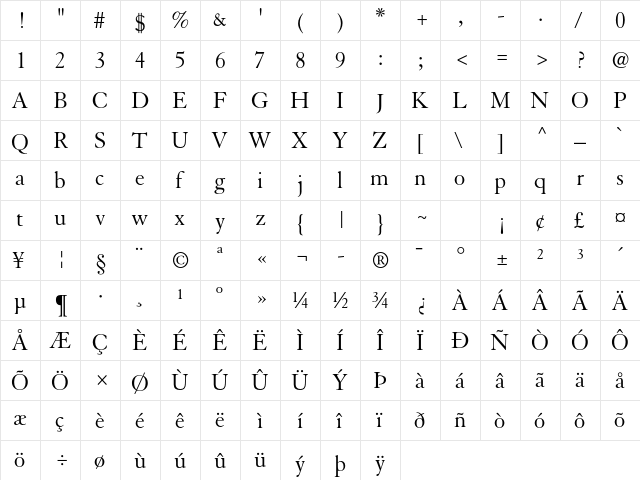
Granjon LT Std Roman Font Preview
Granjon LT Std Roman
Granjon LT Std Roman Font Details
| Designer | George W. Jones |
Design Context for Granjon LT Std Typeface
Granjon LT Std offers clean, dependable letterforms without strong stylistic allegiance, making it a practical choice for designers who need flexibility. Its slender proportions lend an understated elegance to any composition.